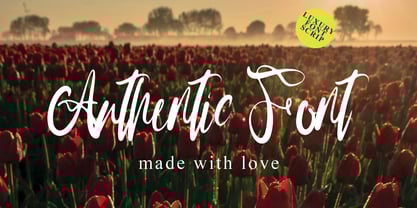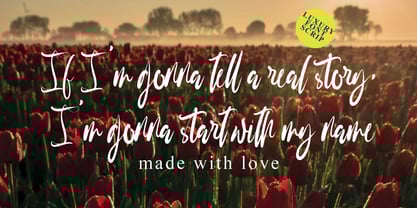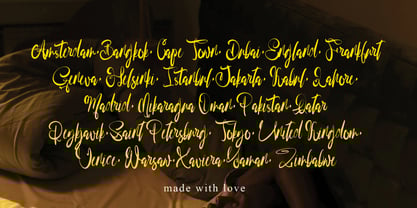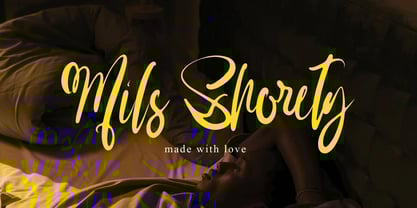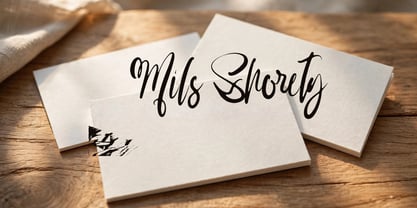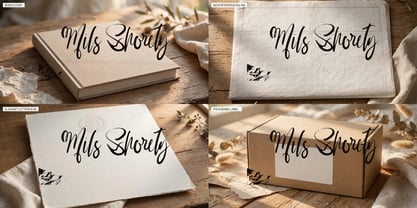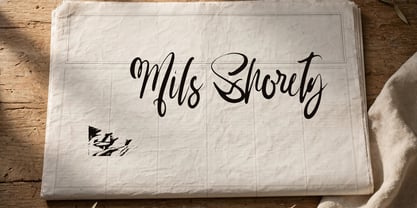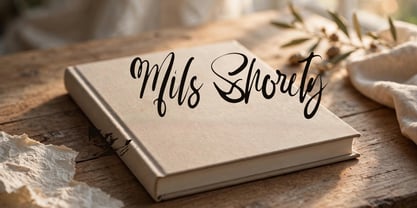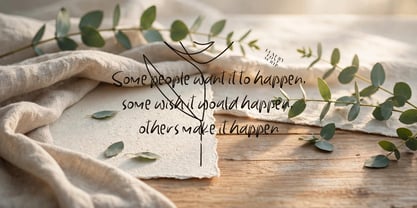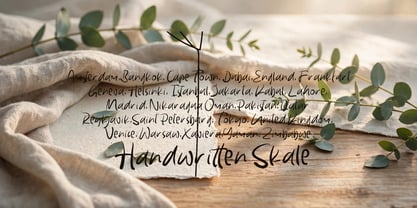
Mils Shorety
Discover the sophisticated charm of Mils Shorety, a harmonious fusion of contemporary style and traditional craftsmanship. With its unmatched allure, Mils Shorety seamlessly rises as a reliable partner for all your imaginative digital endeavors. Its broad spectrum of versatility is impressively captivating; enchanting blog audiences with its unique charm, injecting a distinctive panache into your digital planner designs, adding bespoke elements to your invitations, and incorporating authenticity to your handmade greeting cards. Revel in the unceasing allure and creativity of Mils Shorety—a top choice for infusing a touch of nostalgia into your cherished photo compilations or enhancing your home decor. Its entrancing magic transforms ordinary digital interactions into exceptional, compelling masterpieces. Allow Mils Shorety to direct your creative voyages, leaving noteworthy imprints of artistic expression. Explore the artistic majesty of Mils Shorety, and watch as previously perceived artistic limitations transition into revolutionary revelations.